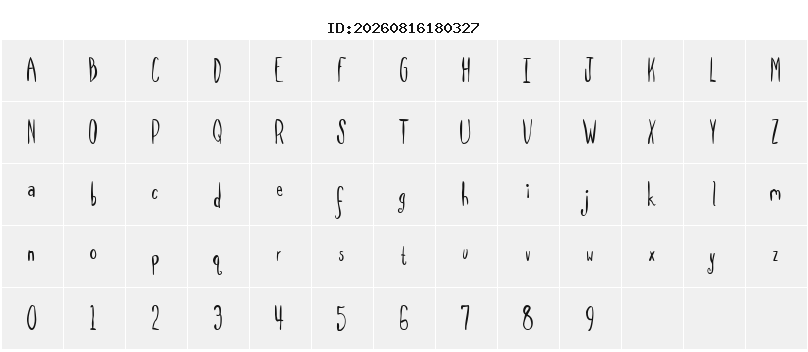
• Font Name: SpillMilk
• Full Font Name: SpillMilk
• PostScript Name: SpillMilk
About SpillMilk.ttf
SpillMilk.ttf is a modern, elegant sans-serif font designed for ultimate readability and visual harmony. Perfect for branding, headlines, web design, and print materials.